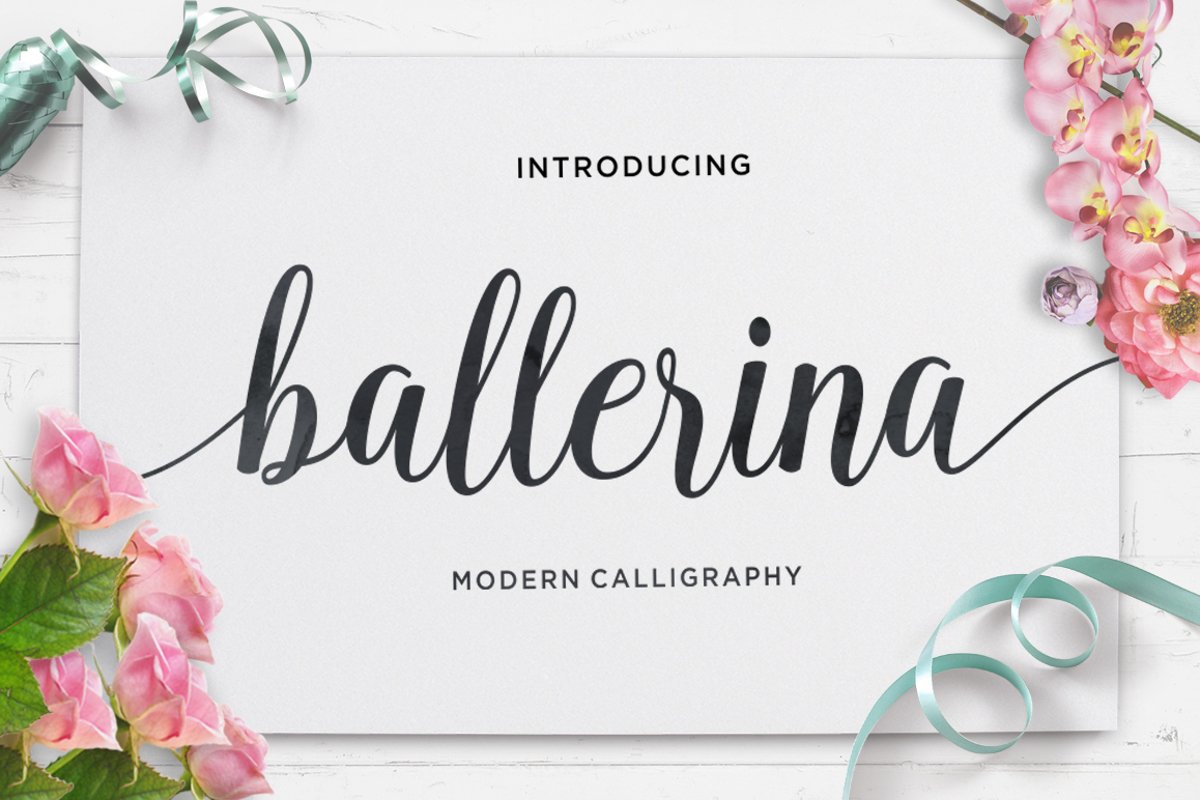
Ballerina Script is modern calligraphy font. This font is casual and pretty with swashes. Can used for various purposes. such as logo, product packaging, wedding invitations, branding, headlines, signage, labels, signature, book covers, posters, quotes and more.